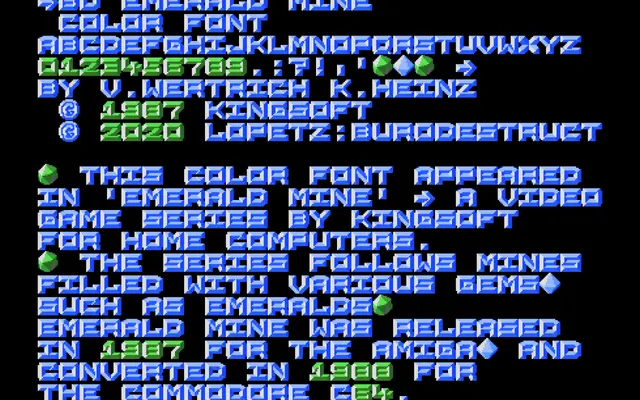
BD EmeraldMineColor
Type Different · Klaus Heinz, Volker Wertich · 2020
A colour font recreation of the bitmap lettering from the 1987 Amiga game Emerald Mine, made available as a free download.
Based on the typeface used in Emerald Mine, the Kingsoft boulder-dash game released for the Amiga in 1987, this revival was packaged as a colour font in 2020. Coverage is limited to basic Latin characters, punctuation and a handful of currency symbols, reflecting the minimal glyph set of the original game font. Best suited to retro gaming projects, fan work or anything that wants an authentic slice of late-1980s microcomputer aesthetics.
A colour font revival of bitmap lettering from an Amiga game, placing it firmly in the display/pixel category with no serif or sans-serif structural logic.